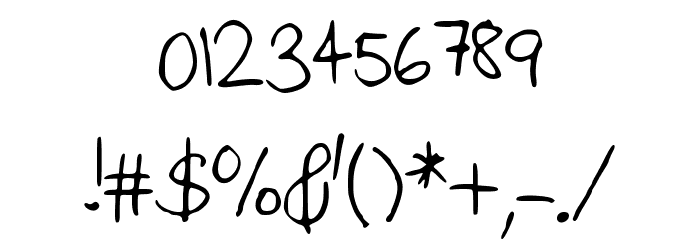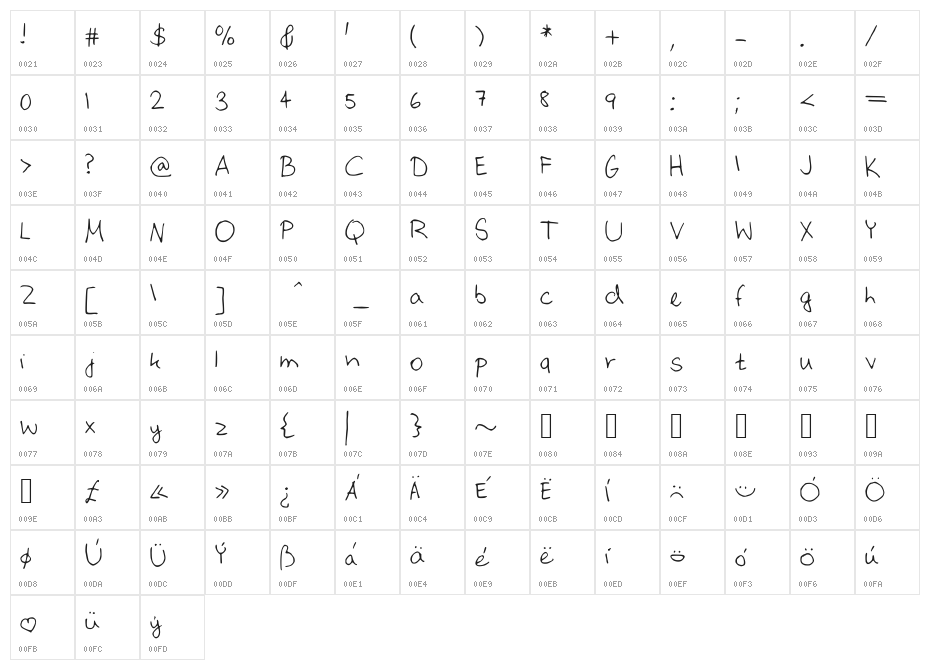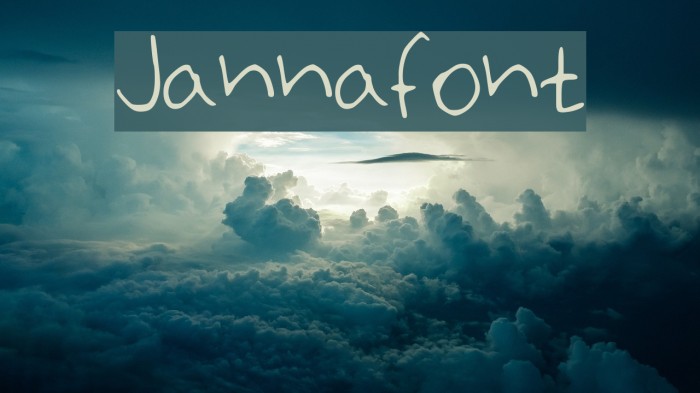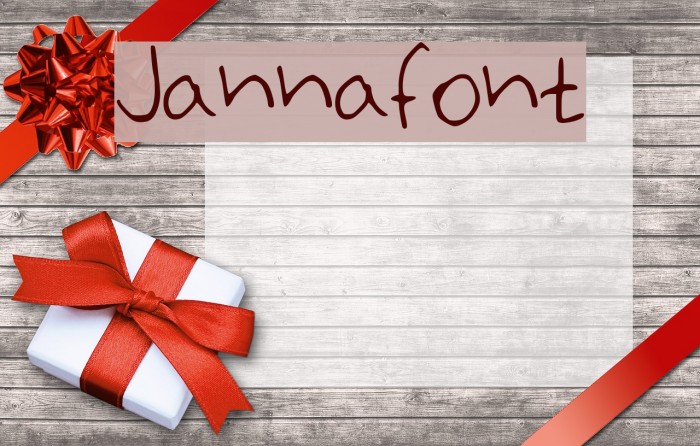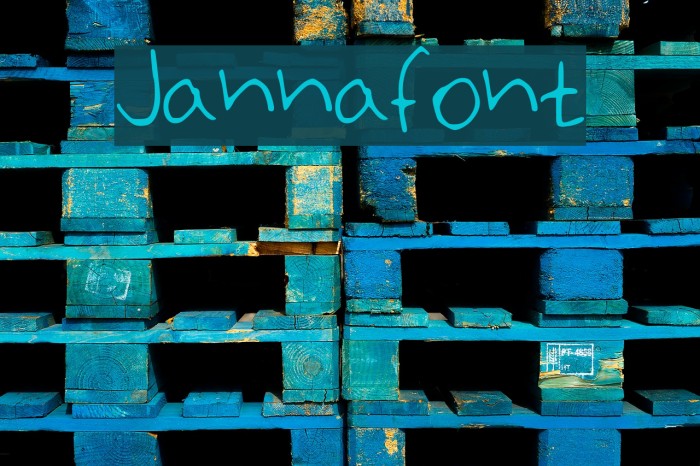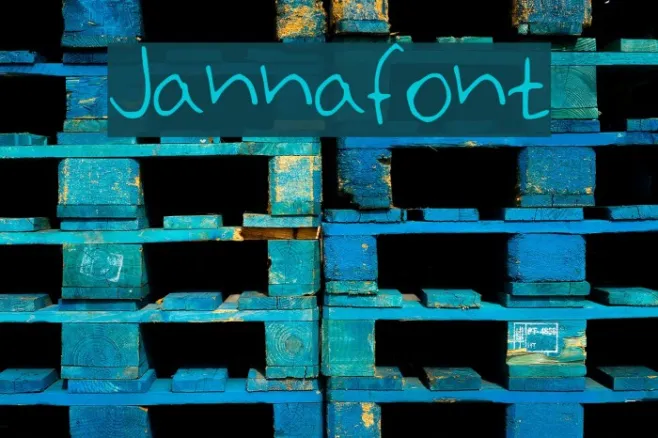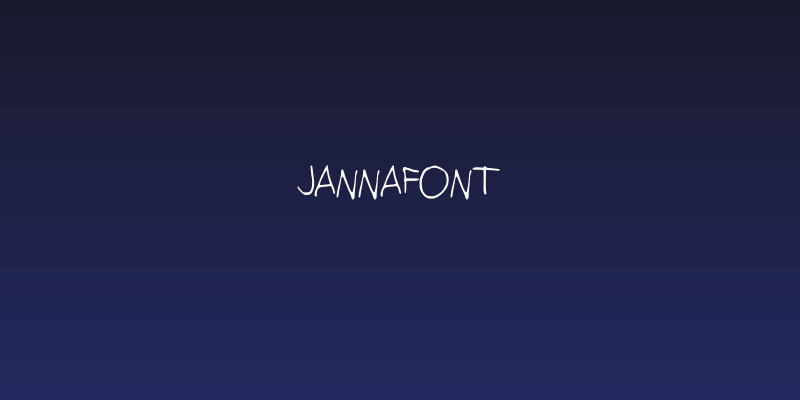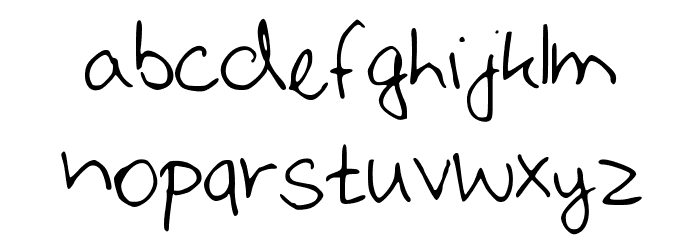
Jannafont Font
Jannafont Description
This font features a playful and casual handwritten style, characterized by its irregular and slightly whimsical letterforms. The uppercase and lowercase letters exhibit a consistent flow, with rounded edges and a slight slant that adds to its informal appearance. The numerals and special characters maintain the same playful aesthetic, making it suitable for projects that require a personal touch. The font's overall design is approachable and friendly, making it ideal for creative and informal applications.